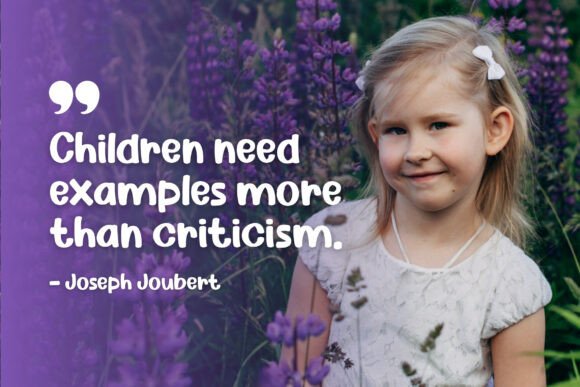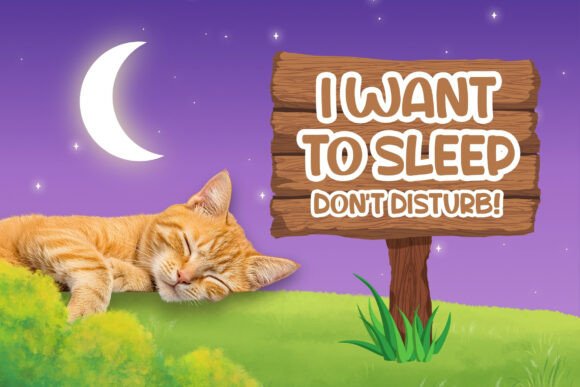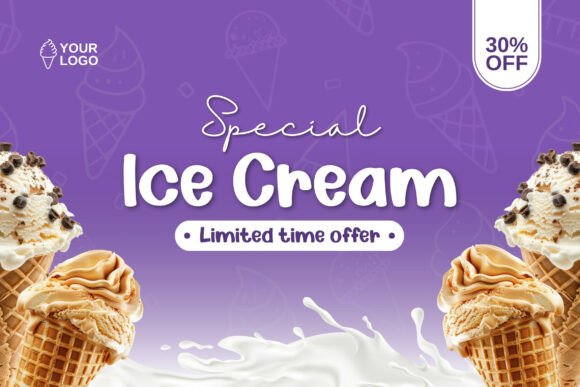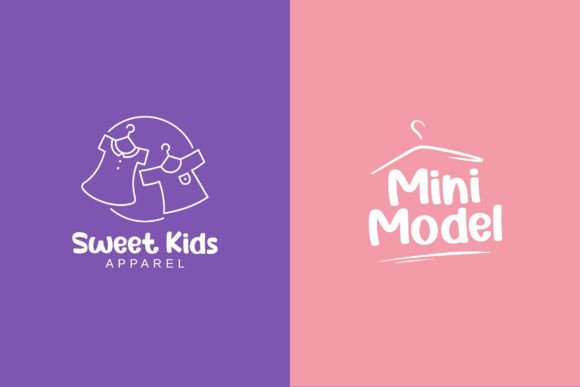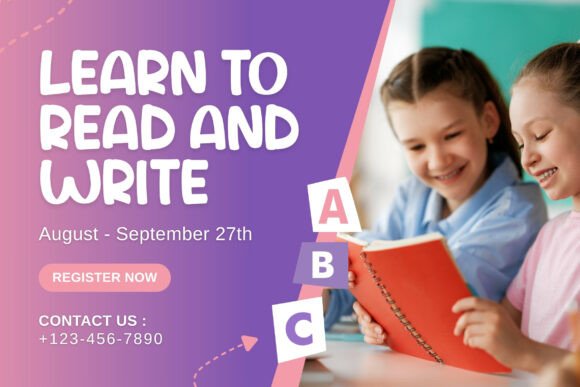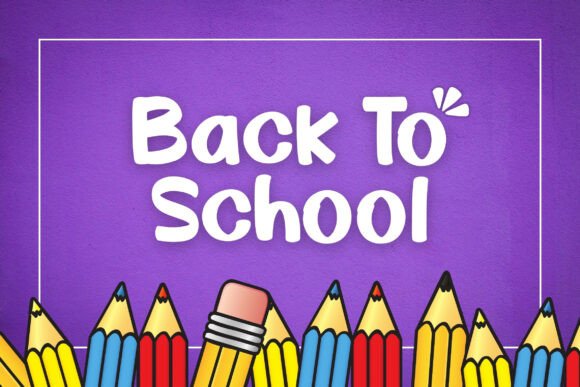
Introduction to Cute Herlina Font
Cute Herlina is a premium playful display font designed to bring charm, warmth, and joyful personality into your designs.
Featuring soft, rounded, and bubbly letterforms, this typeface delivers a delightful visual experience that feels both cute and professional Crafted with attention to balance and readability, Cute Herlina is perfect for designers who want to create high-impact yet friendly designs for children-focused projects and adorable branding concepts.
Key Features of Cute Herlina Font
Why Choose Cute Herlina Font?
Cute Herlina Font offers exceptional quality and versatility, making it a valuable addition to your design toolkit. Whether you’re creating for personal projects or commercial use, Cute Herlina Font delivers professional results.